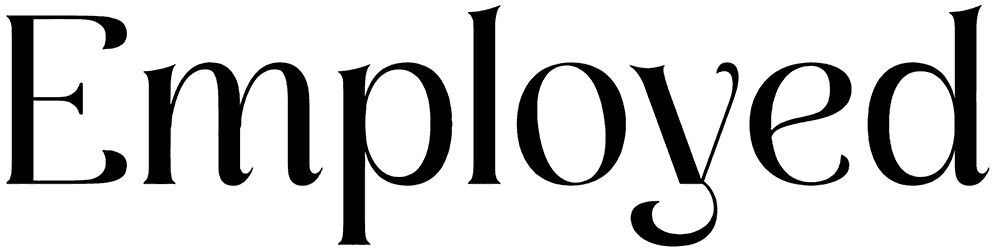
Employed Font
Your design is going to look stylish and beautiful if you select a serif font like the present item. This elegant font with its unique letter face is a versatile font that can be used for varied formal to informal designs, such as a hotel logo. Employed font will give a salient form to your words and reflect your unique taste.